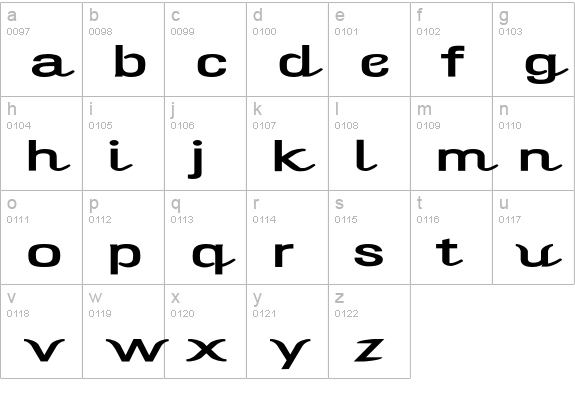
EvangelicBold Font Details
EvangelicBold is a sophisticated and elegant font that exudes a sense of modernity and professionalism. Its bold and strong letterforms make a striking statement, perfect for headers, titles, and branding projects. With its sleek and stylish design, EvangelicBold commands attention and creates a lasting impression. This versatile font is ideal for a wide range of design projects, from websites and posters to business cards and packaging. Its clean lines and distinct shapes ensure readability and impact across various mediums. What's more, EvangelicBold is available for free download at FontsMarket.com. This means you can easily access and use this stunning font in your projects without any cost. Elevate your designs with EvangelicBold and make a bold statement that leaves a lasting impression.